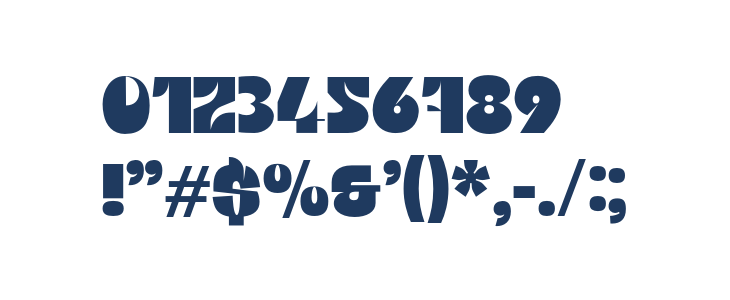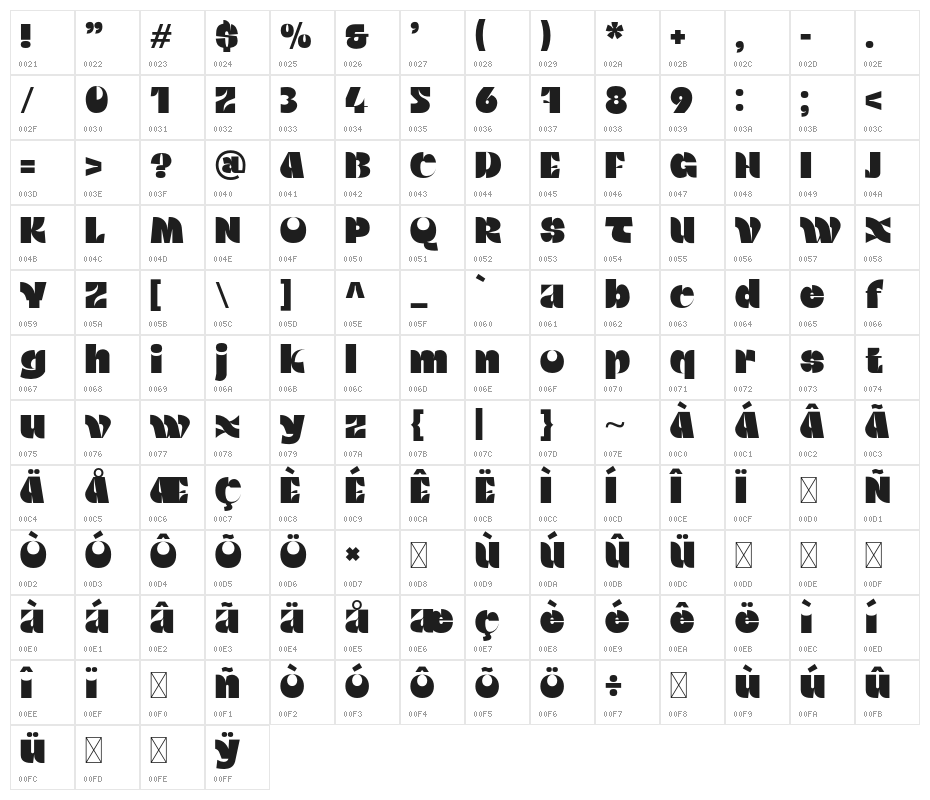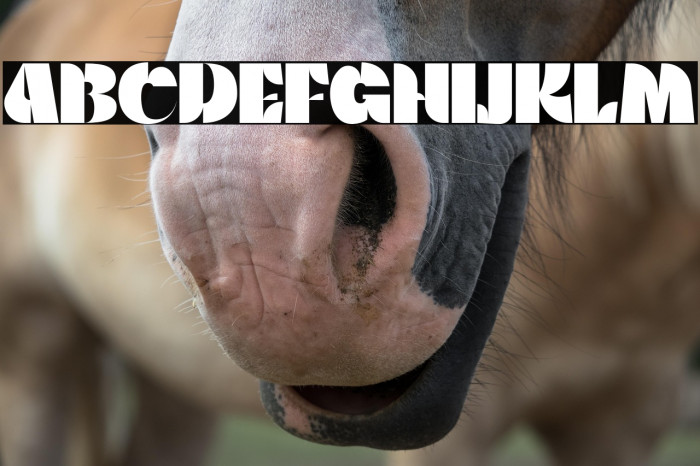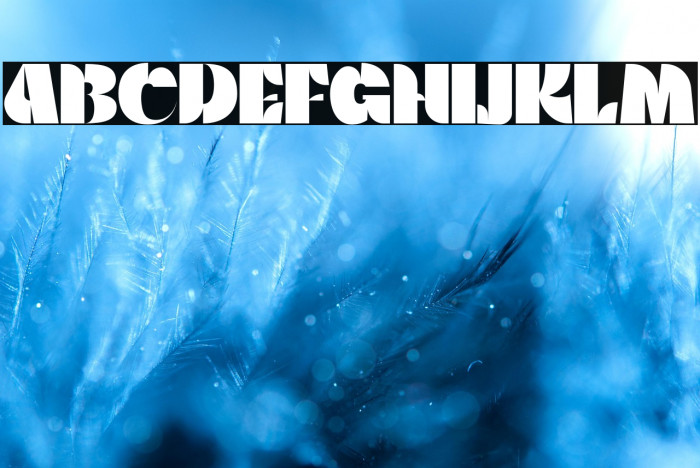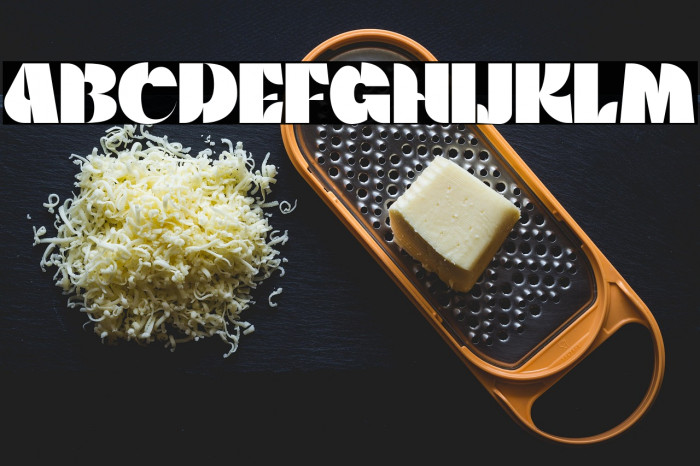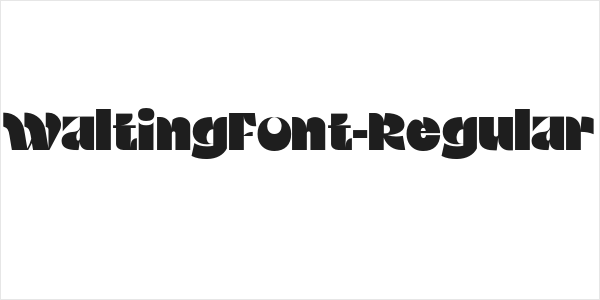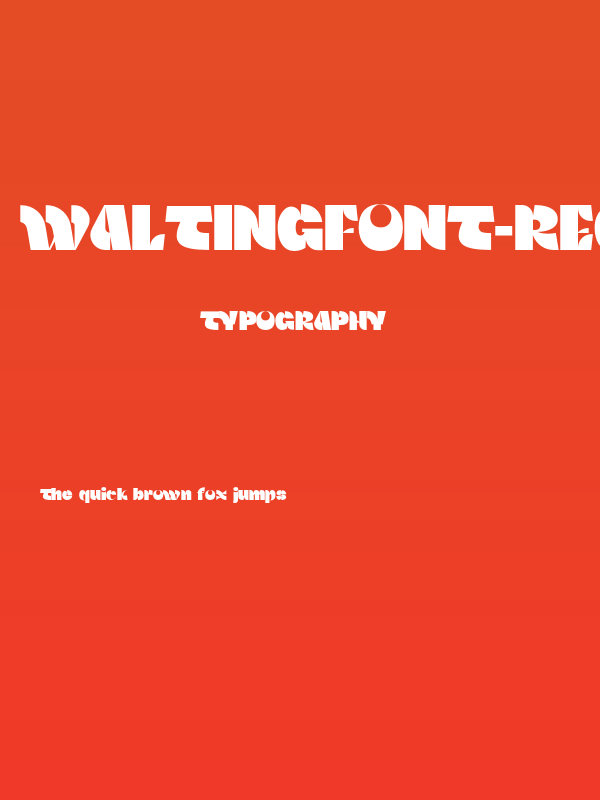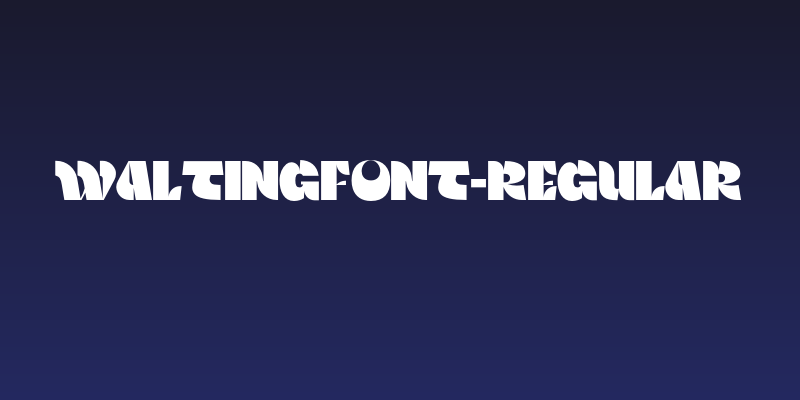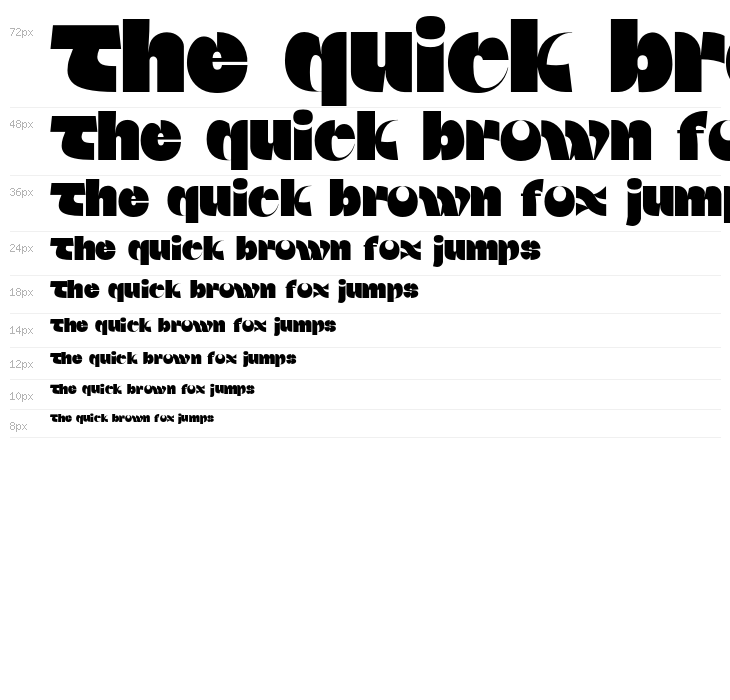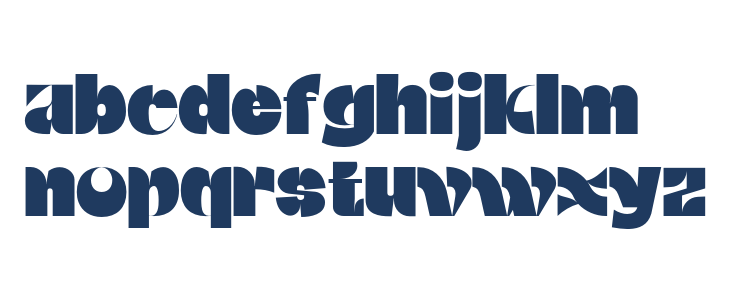
WaltingFont-Regular Font
WaltingFont-Regular Description
This font exhibits a bold and striking appearance with its thick, blocky characters that have a unique geometric flair. The letters are crafted with a high contrast between thick and thin strokes, giving them a dynamic and modern look. The uppercase and lowercase letters maintain a consistent style, while the numbers and special characters complement the overall design. The font's distinctiveness is further enhanced by its creative use of negative space, making it ideal for eye-catching designs.
| Proposed Projects | Ideal for branding, poster design, and headlines where a strong visual impact is desired. |